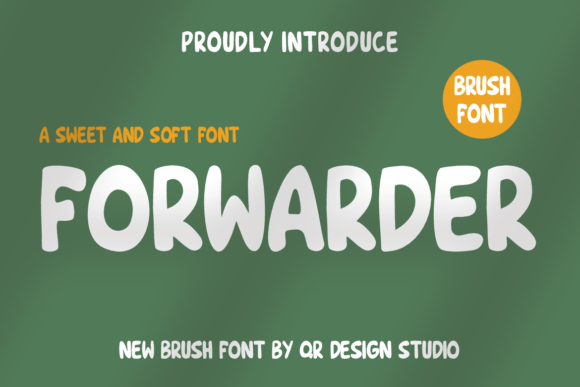
Embark on a typographic odyssey with Forwarder Font—a dance of characters, where ink trails in liquid motion, gracefully traversing the paper's expanse. Enter a world where letters leap and twirl, brimming with energy and passion; a symphony of strokes woven into the fabric of words. Forwarder Font is more than just a collection of glyphs—it's a testament to the power of expression, of translating emotions into tangible form.
Visualize the impact of your social media posts, adorned with Forwarder's captivating allure. Your words will ignite screens, drawing viewers in with an irresistible charm. Engage your audience with Forwarder, a font that commands attention, igniting conversations and leaving an indelible mark in the digital landscape.
In print, Forwarder Font is a dance of elegance and grace, adding a touch of sophistication to any project. Its sweeping lines and purposeful curves bring life to your designs, evoking a sense of grandeur and timelessness. Be it a wedding invitation, a business proposal, or a personal journal, Forwarder elevates your words, transforming them into poignant expressions of art.
Forwarder Font is a versatile companion in the world of branding. Its distinctive personality lends itself to a myriad of applications, shaping identities that radiate with authenticity and charisma. Craft logos that exude a sense of dynamism and movement; create business cards that leave a lasting impression; or design packaging that enchants and captivates. Forwarder Font is the brush that paints the picture of your brand, leaving an indelible mark in the minds of your clientele.
Welcome to the world of Forwarder Font, where creativity knows no bounds. Its strokes are your paintbrush, your chisel; your words are the canvas, the stone. Together, you'll sculpt masterpieces that speak volumes, resonating with your audience's hearts. Forwarder Font—the font that ignites passions, propels imaginations, and leaves an everlasting legacy.